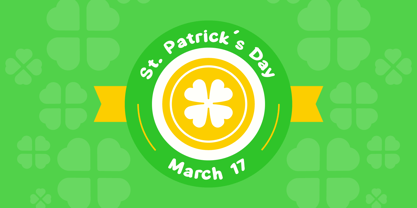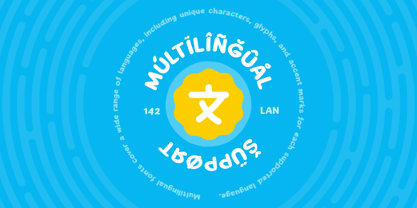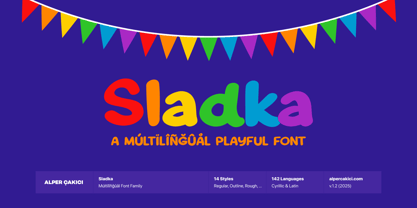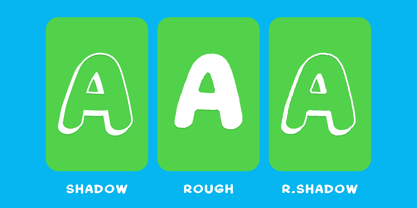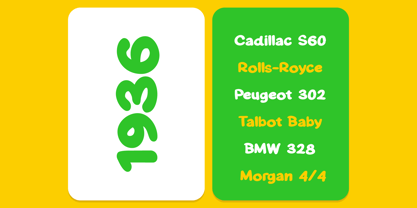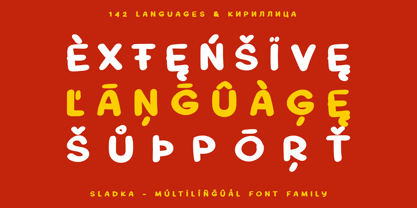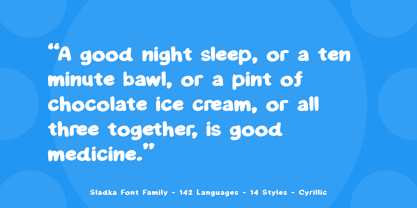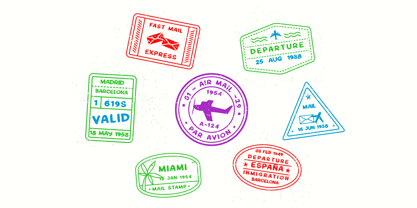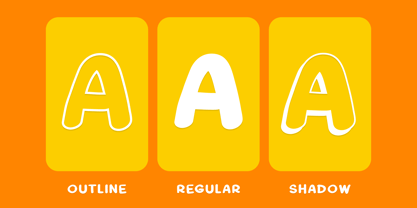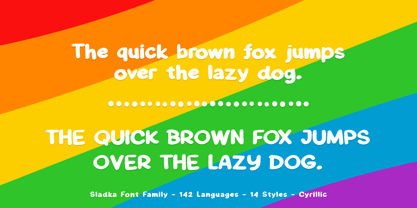
Sladka
Sladka is a bold, handwritten font family designed to bring warmth, charm, and playful energy to every project. With 142-language support and 14 expressive styles, Sladka offers extraordinary versatility for branding, packaging, logos, social media, editorial design, and beyond. The family includes Regular, Italic, Outline, Shadow, Rough, Rough Outline, Rough Shadow, and their italic counterparts—each crafted to enhance cute, joyful, and whimsical design atmospheres. Its smooth curves and friendly personality make Sladka perfect for anything that needs a touch of sweetness and handcrafted authenticity. Whether you're creating eye-catching titles or unique display typography, Sladka combines character, clarity, and global compatibility in one delightful package.